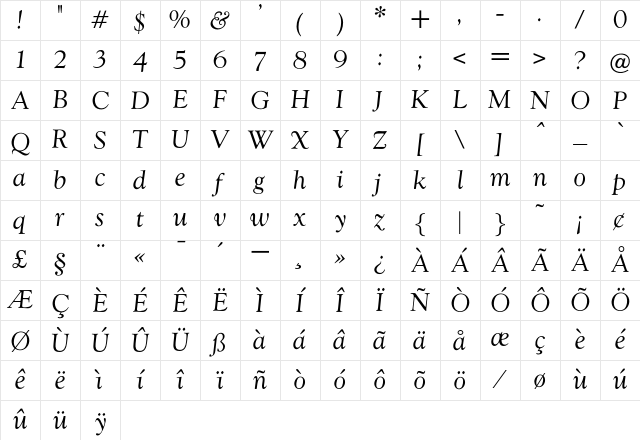
Complete OPTIwtcGoudy-Regular Italic glyph index. Displaying only characters natively supported by OPTIwtcGoudy-Regular Italic font.
OPTIwtcGoudy-Regular is a composed and adaptable typeface that performs quietly and consistently across a wide range of design contexts. The slanted form adds forward momentum and visual energy.